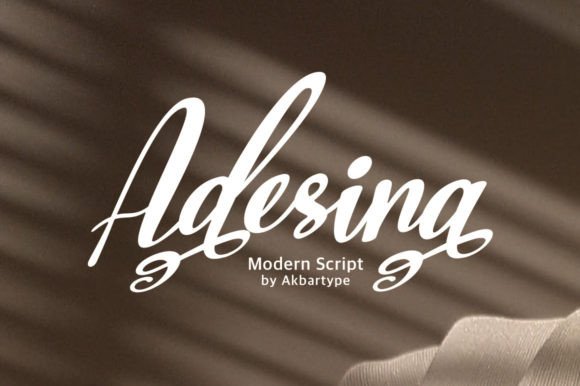
Journey into the realm of typography with Adesina Font - the captivating script font poised to transform your creative vision into a tangible masterpiece. Experience the harmonious blend of classic elegance and modern finesse as the font's strokes dance upon your screen.
Immerse yourself in the world of graphic design, where Adesina reigns supreme. Its fluid, enchanting style adds a touch of sophistication to logos, branding, posters, and social media graphics, leaving an indelible mark on the minds of your audience.
With Adesina as your creative companion, craft invitations that exude timeless charm, as though plucked straight from a bygone era. Weave enchanting stories through event posters, effortlessly capturing the essence of the occasion. Harness the power of Adesina to bring life to advertisements, creating imagery that captivates and compels action.
Beyond its aesthetic splendor, Adesina Font is a versatile chameleon, effortlessly adapting to a myriad of creative projects. Unleash your inner artist and explore the limitless possibilities of crafting, adding a personal touch to cards, mugs, and fabrics. The font's inherent authenticity shines through, elevating ordinary objects into cherished keepsakes.